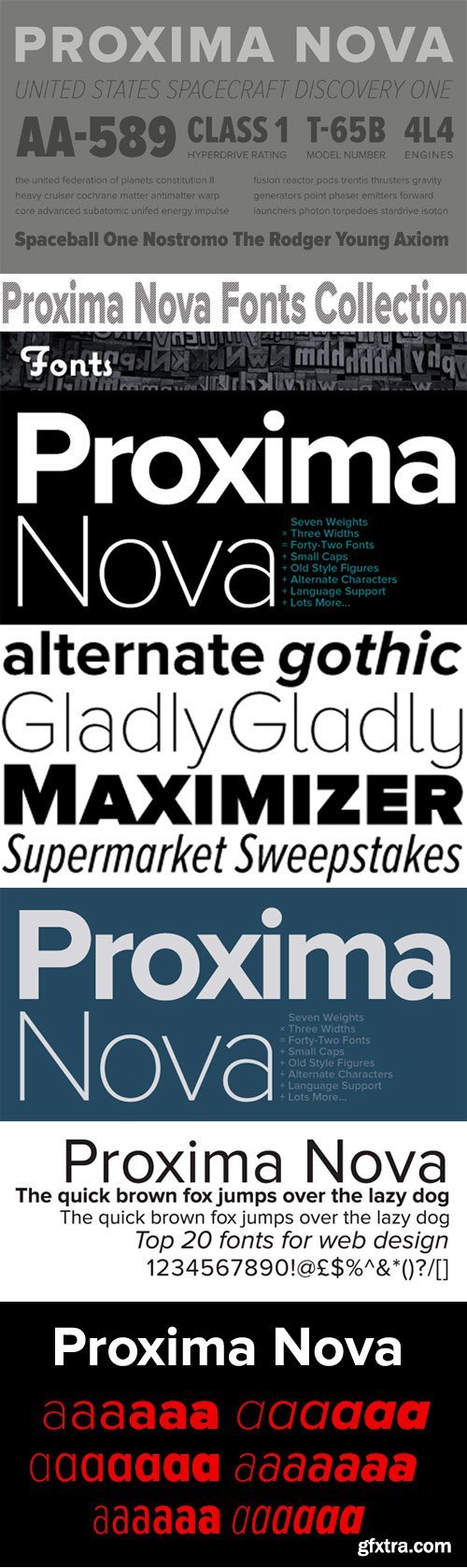
Proxima Nova Font Family
The Proxima Nova family is a complete reworking of Proxima Sans (1994). The original six fonts (three weights with italics) have been expanded to 42 full-featured OpenType fonts. There are three widths: Proxima Nova, Proxima Nova Condensed, and Proxima Nova Extra Condensed. Each width consists of 14 fonts--seven weights with matching italics. Stylistically, Proxima Nova straddles the gap between typefaces like Futura and Akzidenz Grotesk. The result is a hybrid combining humanistic proportions with a somewhat geometric appearance.
Feature Summary:
7 weights: Thin, Light, Regular, Semibold, Bold, Extrabold, and Black
3 widths: Normal, Condensed, and Extra Condensed
Matching italics for all weights and widths
Matching small caps for all weights and widths*
Lining and old style figures (proportional and tabular)*
Full “f” ligature set*
Alternate characters (a, l, y, G)*
Automatic fractions*
Automatic ordinals*
Dingbats (16)*
Extended language support (most Latin-based scripts supported)*
Extended currency support*